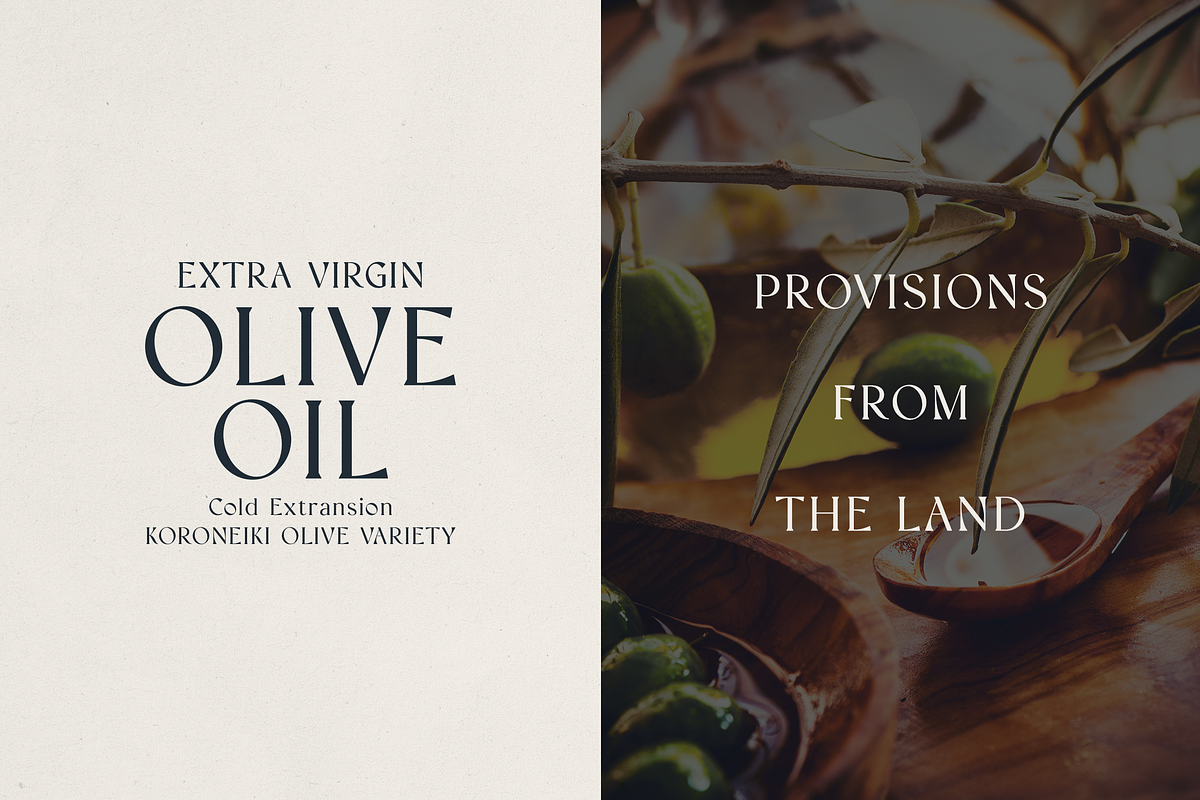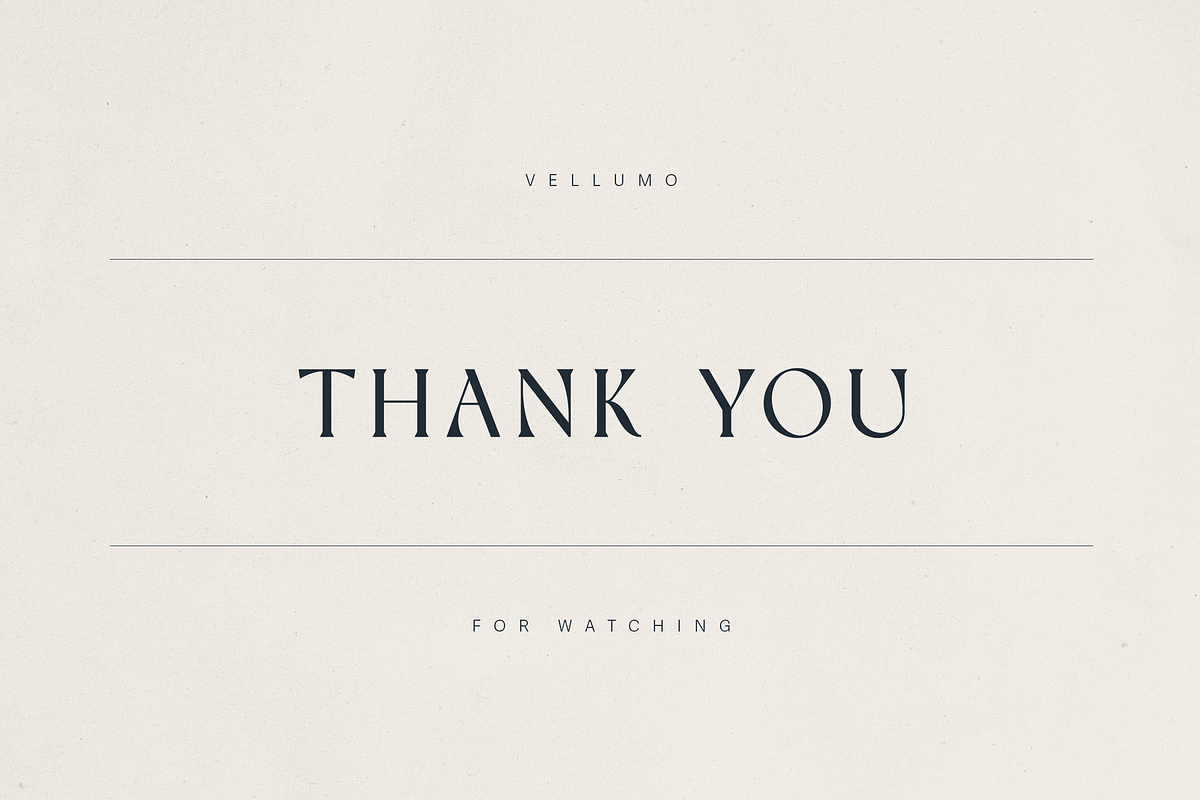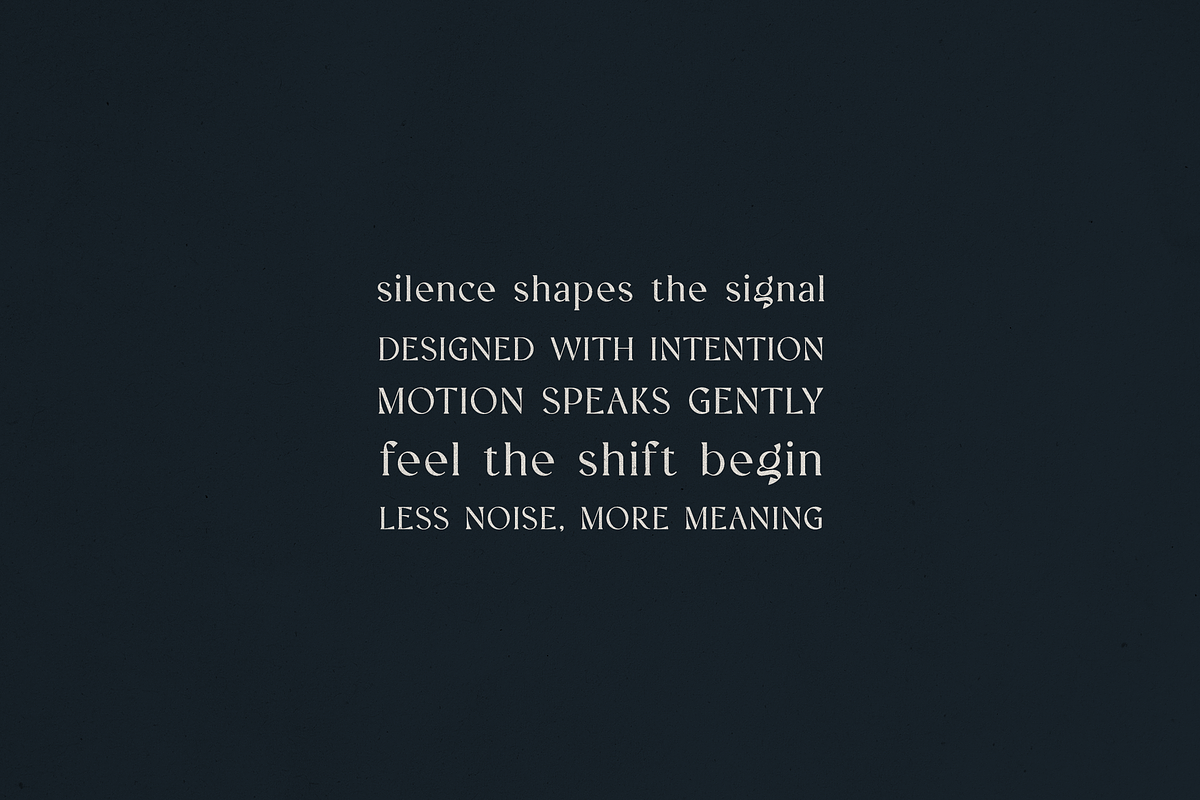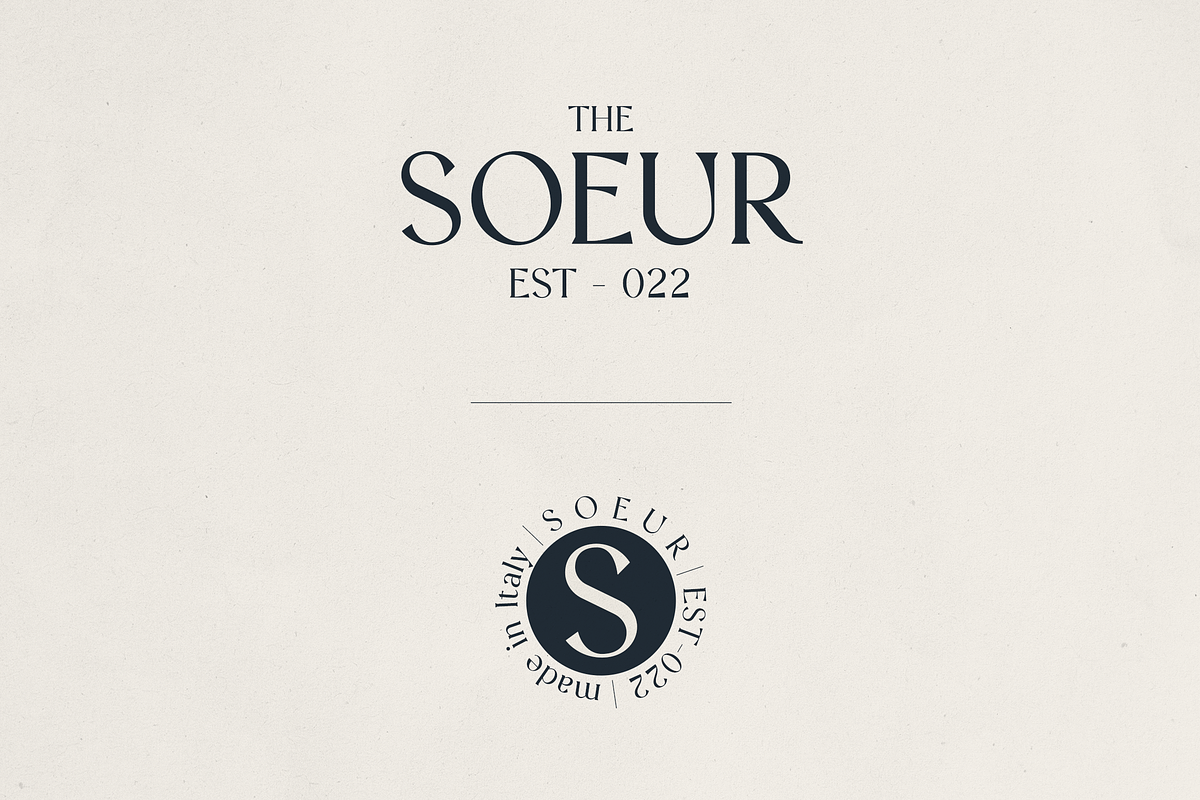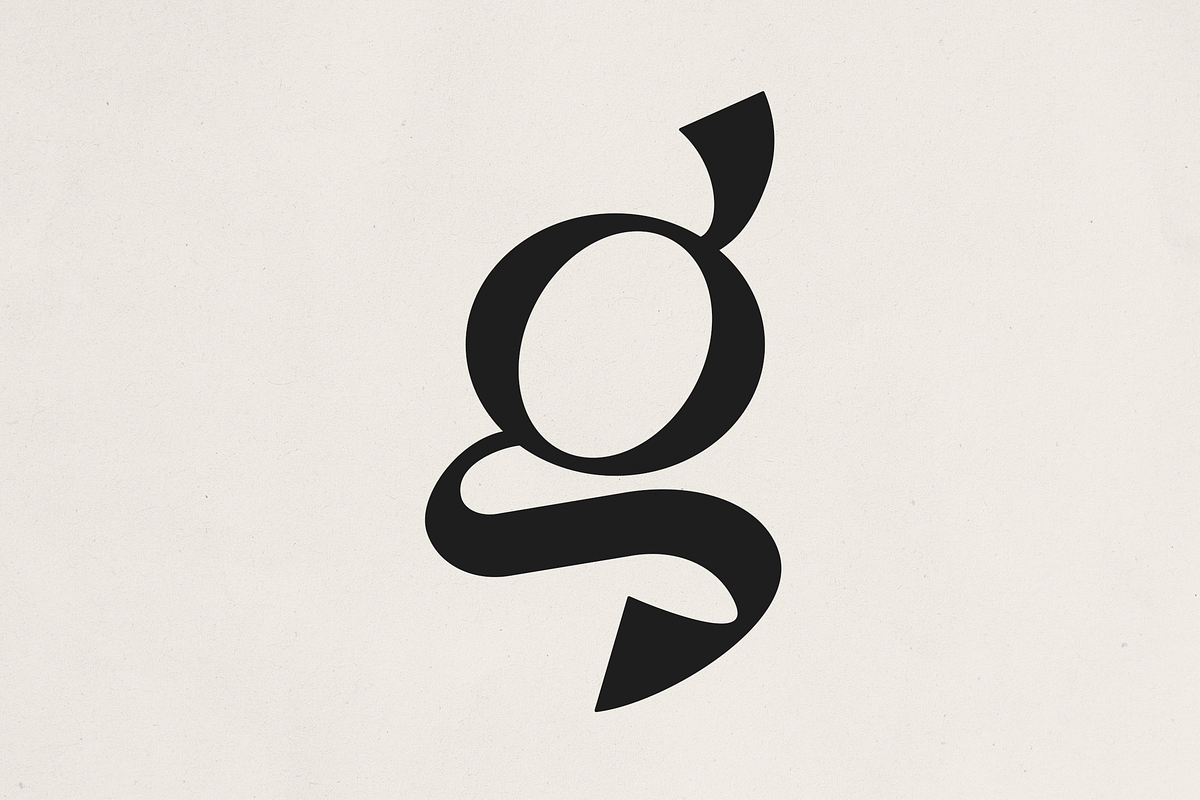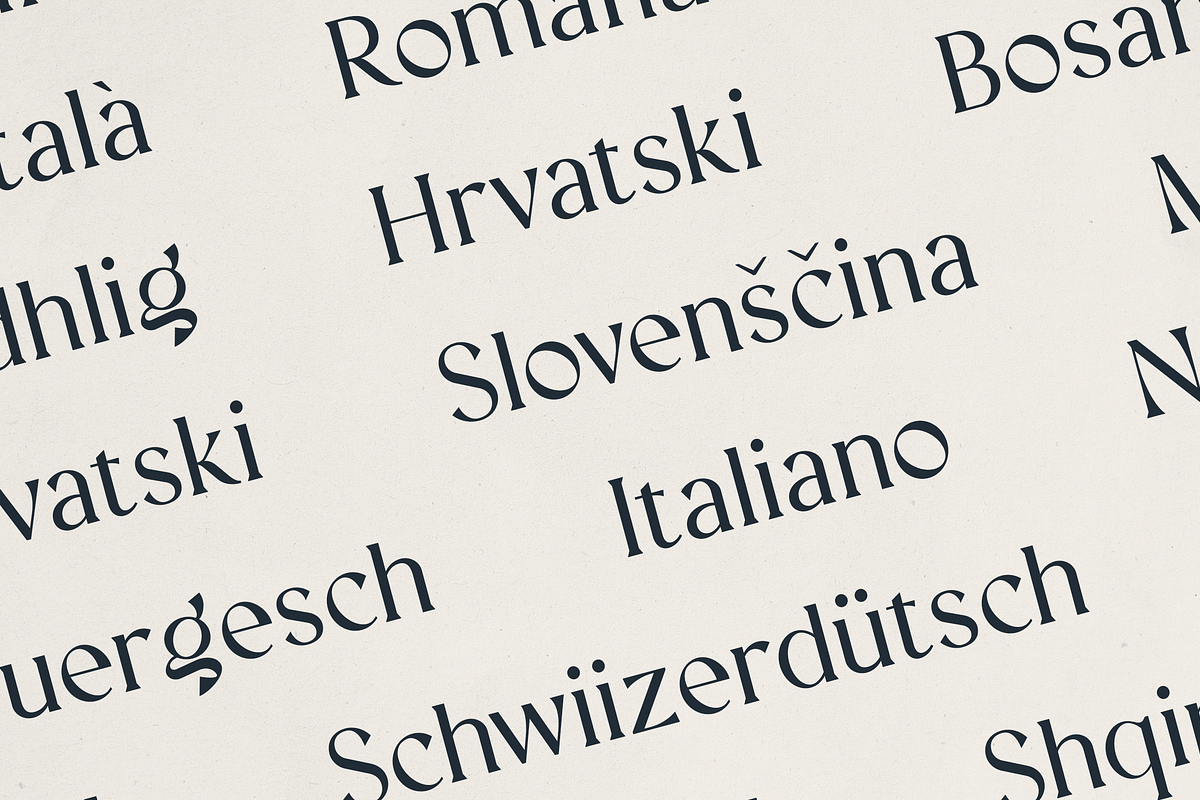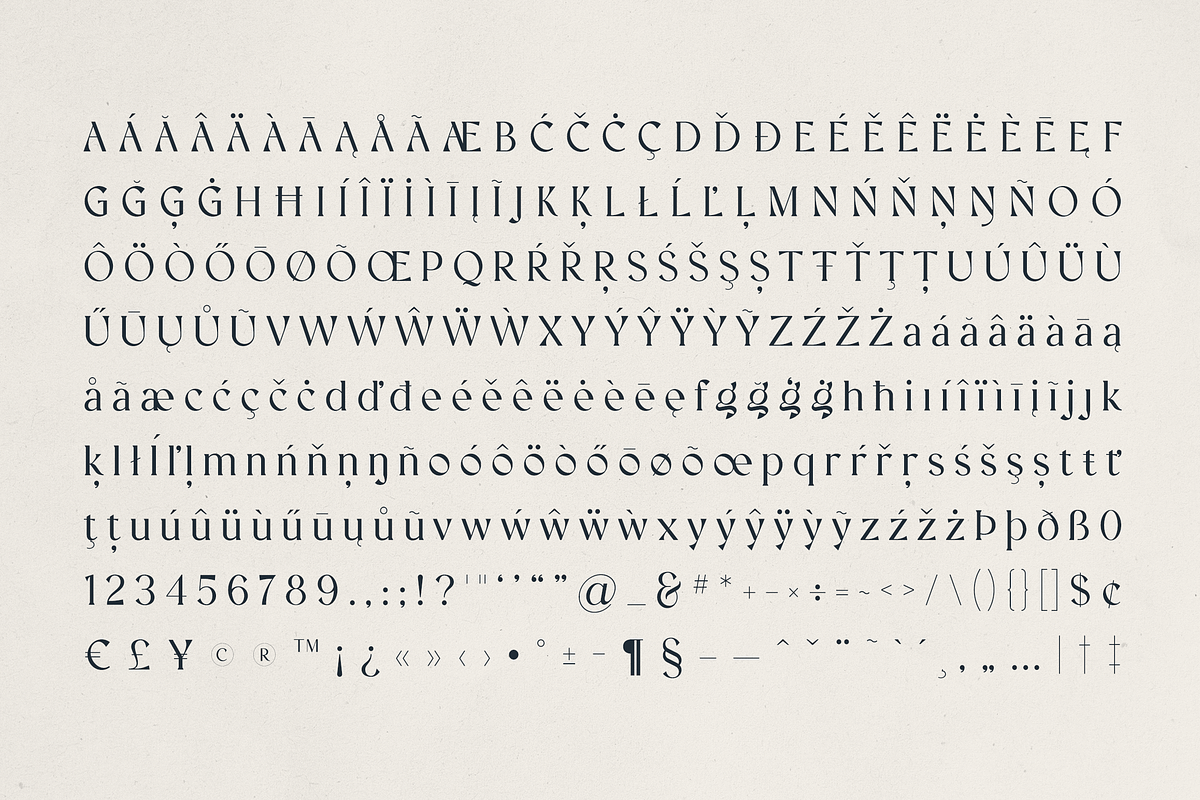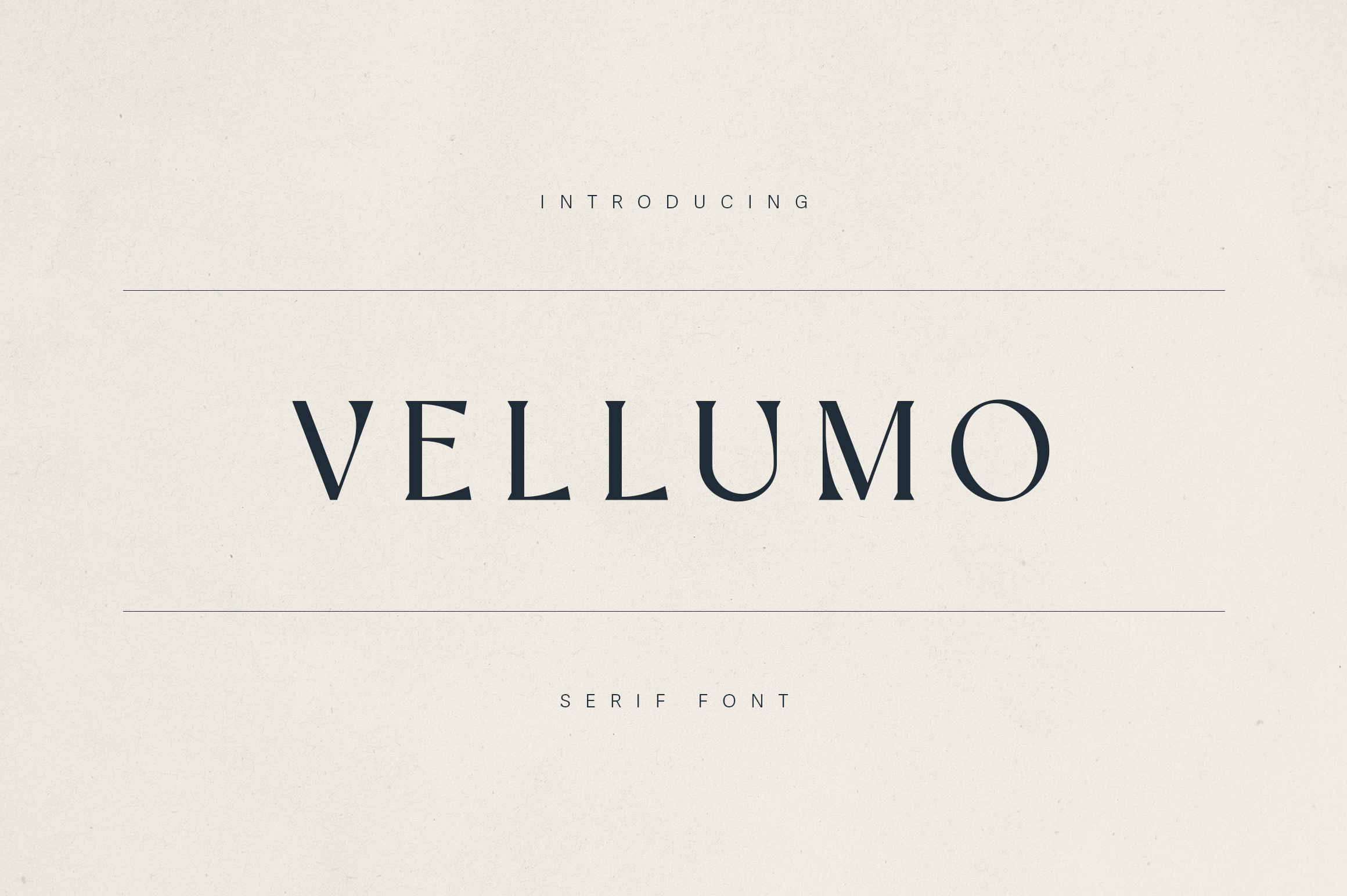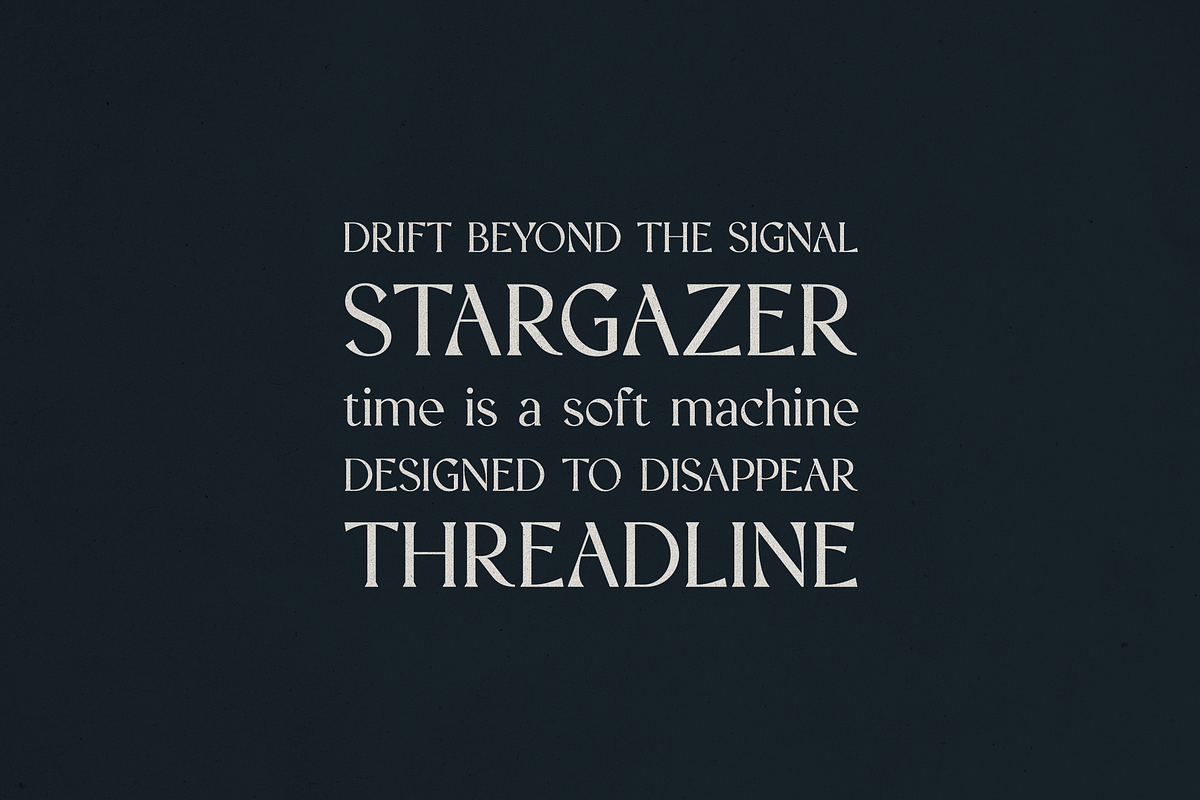
Vellumo – Elegant Serif Font
Vellumo – Elegant Serif Font for Branding, Packaging & Editorial Design
Vellumo is a refined serif typeface that blends timeless elegance with a contemporary voice. Featuring high-contrast strokes, delicate curves, and distinctive character forms, Vellumo is perfect for projects that demand sophistication and clarity. From organic product labels and artisanal branding to upscale editorial layouts and luxury packaging, this font delivers a graceful and expressive typographic experience.
Inspired by classical forms yet designed for the modern age, Vellumo brings a humanist charm and a whisper of romance—making it ideal for fashion, interiors, lifestyle brands, wellness, and handmade goods.
- Stylish serif letterforms
- Multilingual support (extended Latin)
- Numbers, punctuation & symbols
- Optimized for print & digital
- Organic & luxury product packaging
- Boutique branding
- Magazine headlines & pull quotes
- Wedding or event stationery
- Wine & olive oil labels
- Interior design studios
- Editorial design & lifestyle blogs